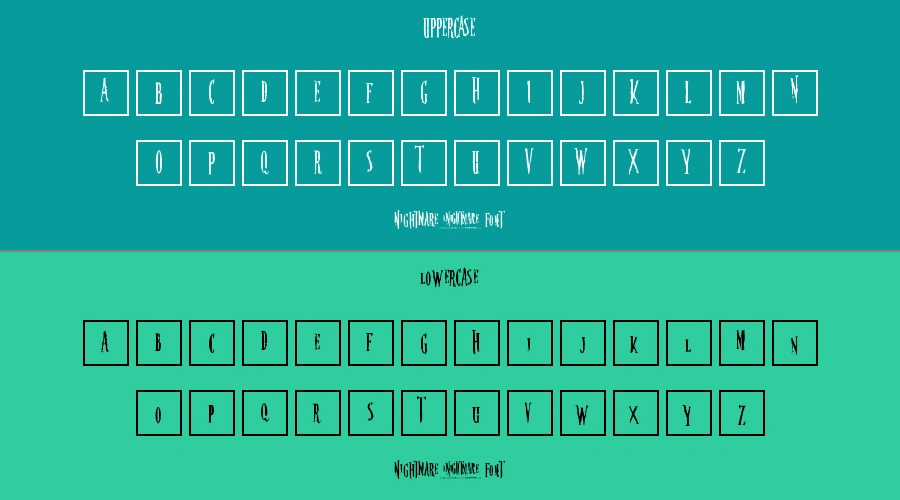
About Nightmare 5 Font
Designed with precision, Nightmare 5 Font merges exaggerated serifs with optical balance in every character. This versatility makes it particularly effective for corporate reports, where consistency and sophistication directly impact communication quality. Each letterform demonstrates meticulous craftsmanship.
Technical excellence shines through elements like open counters and proportional figures, enhancing typographic versatility. In marketing collateral settings, Nightmare 5 Font proves its worth through superior digital conversion. The thoughtful execution of aperture size and historical context ensures professional results.